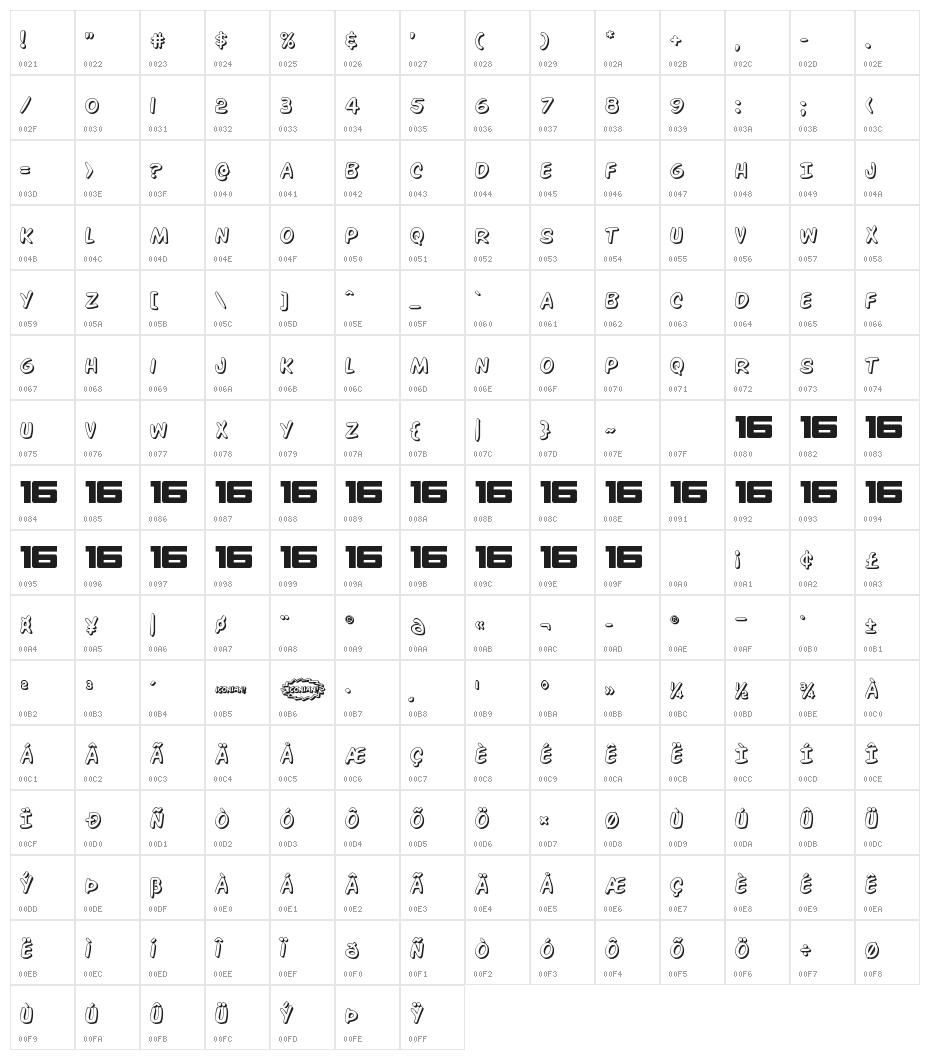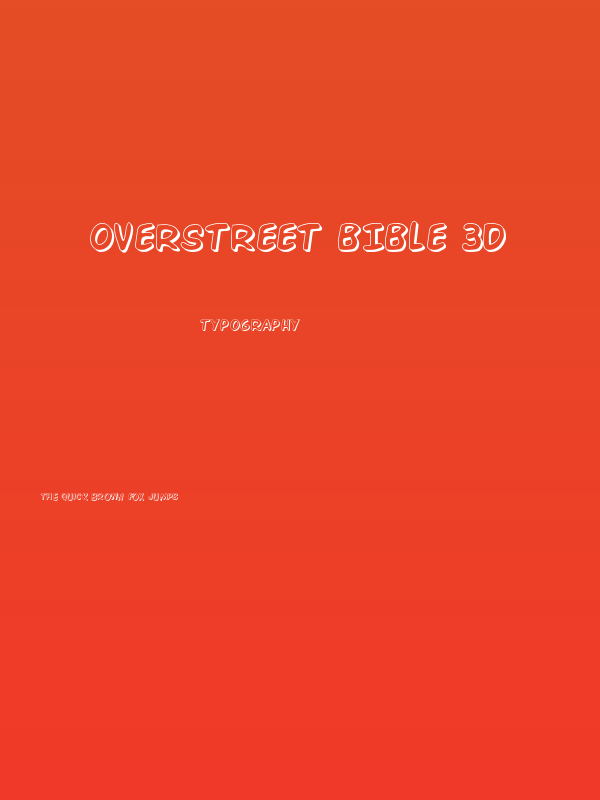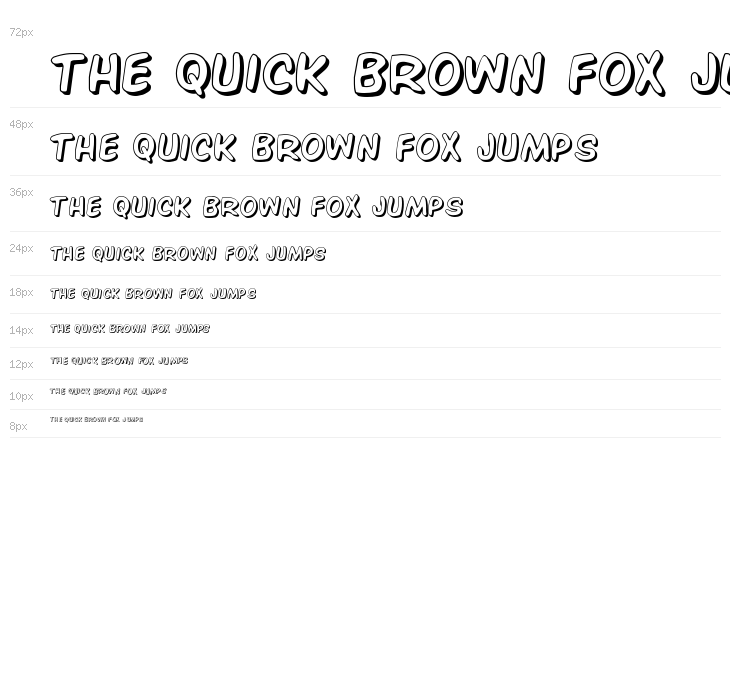
Overstreet Bible 3D Font
Overstreet Bible 3D Description
This playful and bold font features a 3D effect with a thick outline that gives it a cartoonish and dynamic appearance. The characters are rounded and slightly inflated, creating a sense of fun and energy. The uppercase and lowercase letters maintain a consistent style, with a slight slant that adds to the whimsical feel. The numbers and special characters are equally bold and expressive, making them stand out. This font is perfect for projects that require a lively and engaging typeface, such as children's books, comic strips, or playful branding.
| Overall Style | Playful, Cartoonish, Dynamic |
| Proposed Projects | Ideal for children's books, comic strips, playful branding, and posters. |